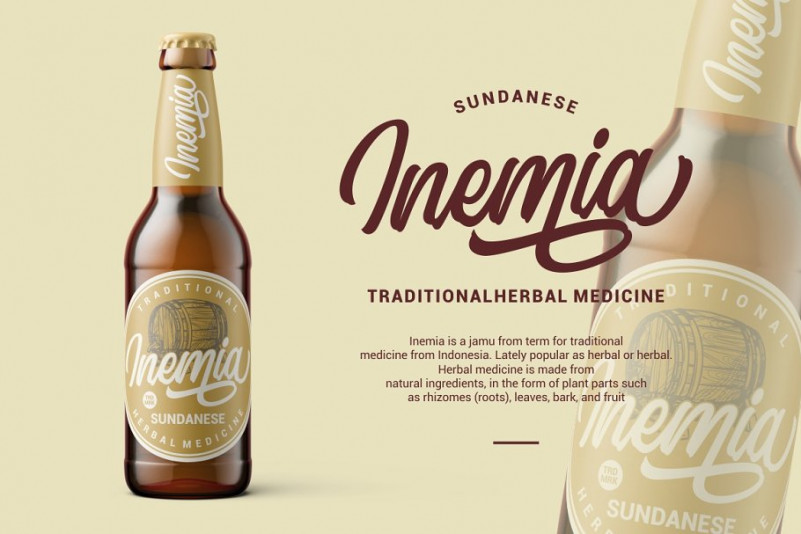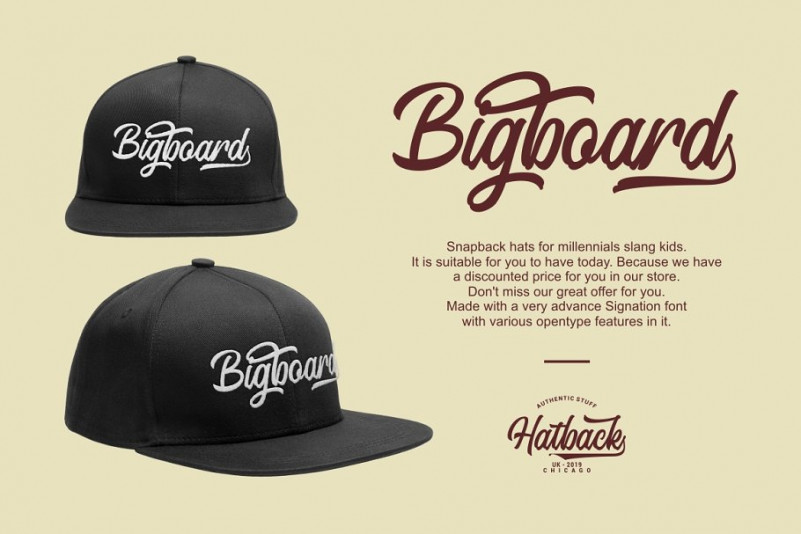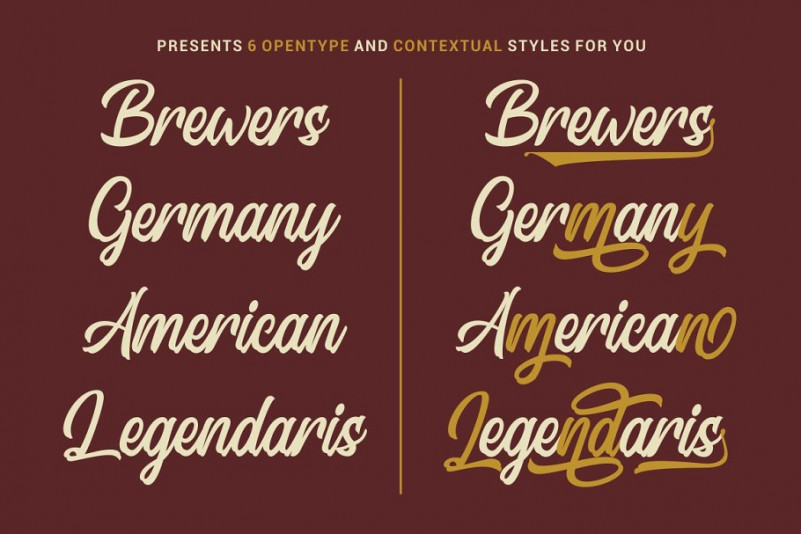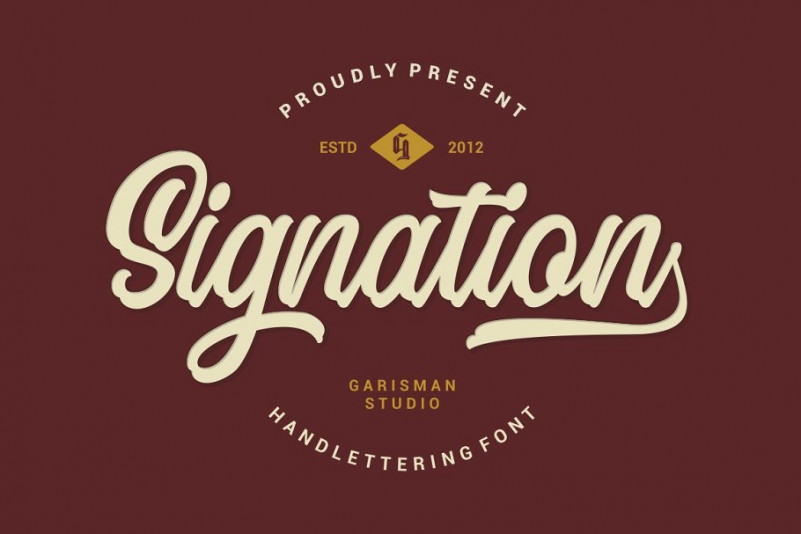
Signation Script Font
Signation Script – Demo Font
Start the new day with a handlettering script font. Is A Hand-Drawn Script Font With A Natural. This signature script moves with ease across any design, and adds a large dose of confidence and style. Introducing Signation Font. It is designed and shared by Garisman Std. Signation Script comes from hand scratches to get natural and natural writing. With the main style of the hand-lettering script, it will be very interesting if it is added with a variety of Alternates (Capital letters) and also Stylistic Sets that are very suitable. Signation is very suitable for use in various media such as; packaging, logos, labels, posters, shirt designs, wisdom quotes, bulletins, typography, and many other media.